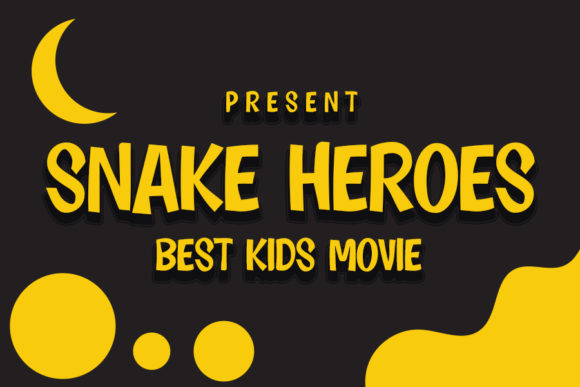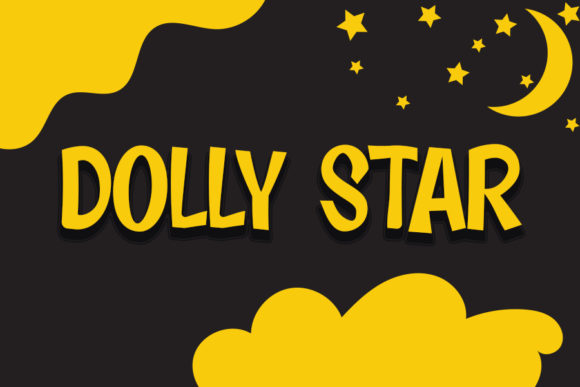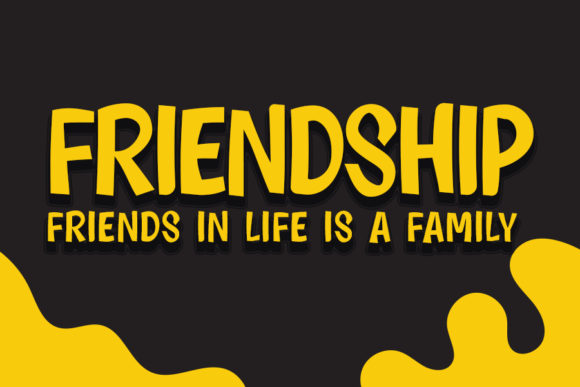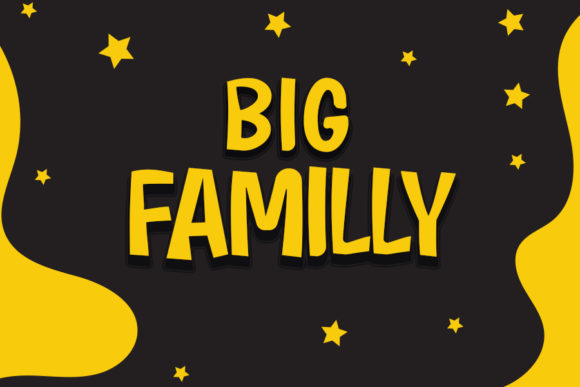
Unleash the Joy of Creativity with Cartoon Kids Font
Remember the moment when you stumbled upon a spark of creativity that ignited a new idea? It’s that feeling of excitement and possibility that drives us to push the boundaries of our imagination. Whether it’s a logo design, a social media post, or a children’s book, we’re always on the lookout for the perfect font to bring our ideas to life.
Enter Cartoon Kids Font – a delightful display font that’s guaranteed to put a smile on your face. Its playful and quirky style is designed to add an extra layer of joy to your designs, making them truly unforgettable. By incorporating Cartoon Kids Font into your creative projects, you’ll not only elevate their visual appeal but also convey a sense of whimsy and fun.
Key Features of Cartoon Kids Font
- Font Styles: The Cartoon Kids Font comes in a variety of styles, including Regular, Bold, Italic, and Bold Italic, making it suitable for various design needs.
- Character Count: The font contains over 250 unique characters, including letters, numbers, and symbols, making it suitable for a wide range of design applications.
- Unique Characteristics: The Cartoon Kids Font features a playful, childlike design, with rounded edges and bold lines, making it perfect for use in children’s books, educational materials, and other design applications where a fun, approachable tone is desired.
Cartoon Kids Font Review
Overall, the Cartoon Kids Font has a lot going for it. The fun and playful aesthetic ✨ is perfect for kids’ content, educational materials, and even children’s party invitations. The font’s whimsical feel is engaging and eye-catching, making it a great choice for designers looking to add some personality to their projects.
The font’s high level of customization ✨ is another major advantage. With a wide range of styles and sizes to choose from, designers can easily adapt the font to suit their specific needs. Additionally, the font’s easy-to-read characters ✨ make it perfect for large blocks of text, such as children’s books or instructional materials.
- The font’s limited language support ⚠️ may be a concern for designers working on projects that require multiple languages.
- The font’s lack of scalability ⚠️ may cause it to lose its crispness at larger sizes, which could affect its overall appearance.
- The font’s heavy use of visual effects ⚠️ may not be suitable for all design projects, particularly those that require a more subtle approach.
Overall, the Cartoon Kids Font is a fun and engaging font that’s perfect for kids’ content and educational materials. While it has some limitations, its high level of customization and playful aesthetic make it a great choice for designers looking to add some personality to their projects.
For the best results, use the Cartoon Kids Font for:
- Children’s book covers and illustrations.
- Fun and playful social media graphics.
- Child-friendly logos and branding.
Remember to pair the Cartoon Kids Font with a clear and readable font for body text.
Alternatives to Cartoon Kids Font
Comic Sans MS is a sans-serif font that was initially designed for use in casual documents and children’s materials. It is highly legible and suitable for use in a variety of contexts, including signage, posters, and digital media. When to use: Comic Sans MS is ideal for informal or humorous designs, but should be avoided in formal or professional contexts.
Comparison to Cartoon Kids Font: Comic Sans MS is more versatile and easier to read, but lacks the playful, cartoonish feel of Cartoon Kids Font.
Candal
Candal is a fun, playful font that is reminiscent of classic cartoons. It features bold lines, rounded edges, and a quirky feel that makes it perfect for use in children’s media, advertising, and entertainment. When to use: Candal is ideal for designs that require a lighthearted, humorous tone.